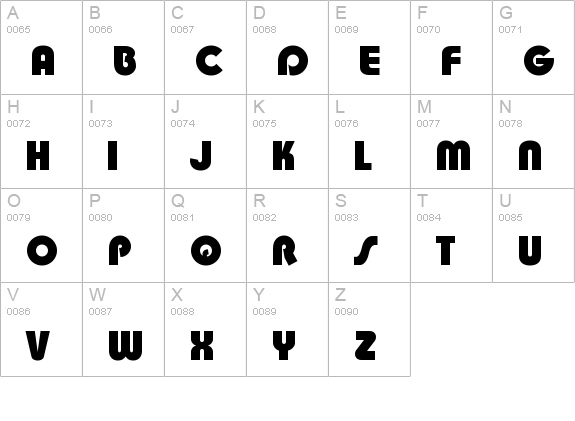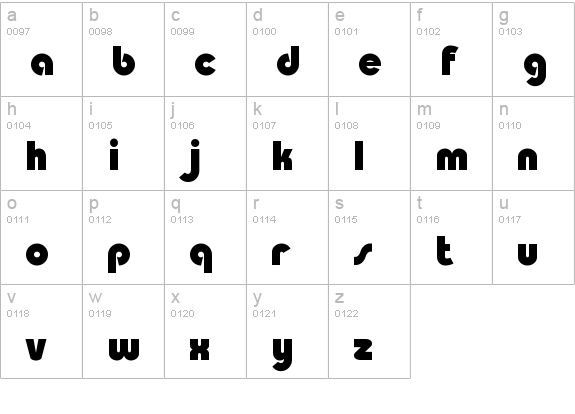
TaurusHeavy Normal is the standard, neutral variant in the TaurusHeavy typeface family \xE2\x80\x94 well suited to general body text, paragraphs, and standard typographic work.
TaurusHeavy Normal font is a stunning typeface that exudes strength and elegance. With its bold and commanding presence, this font is perfect for creating eye-catching headlines, logos, or any design project that requires a touch of sophistication. This versatile font features clean lines and distinctive curves, making it easy to read and visually engaging. Its generous letter spacing ensures legibility, even at smaller sizes. One of the best things about TaurusHeavy Normal font is that it is freely available to download at FontsMarket.com. You can now unleash your creativity without any restrictions or limitations. Whether you are a professional designer or someone who loves to experiment with typography, this font is a must-have in your collection. With TaurusHeavy Normal font, you can bring your designs to life and make a lasting impression. Its timeless appeal and versatility make it suitable for a wide range of projects, from branding and marketing materials to invitations and packaging. Don't miss out on this incredible opportunity to enhance your designs with a high-quality font that is both visually appealing and easy to use. Visit FontsMarket.com today and discover the power of TaurusHeavy Normal font.